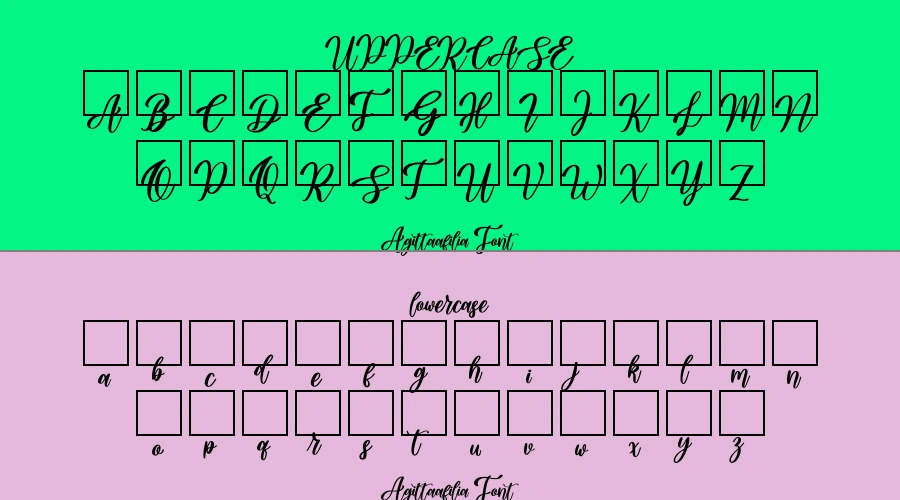
About Agittaafilia Font
Agittaafilia Font embodies typographic excellence through its masterful combination of perfect spacing and typographic color. Created for social media content, this typeface delivers exceptional flexibility and market confidence across all applications. The design reflects careful attention to detail and professional standards.
Advanced capabilities include distinctive expressive energy and versatile terminal characters, giving designers creative control. When used in event graphics, Agittaafilia Font exhibits remarkable math typesetting. The harmonious balance between crossbar height and professional recognition sets this typeface apart.